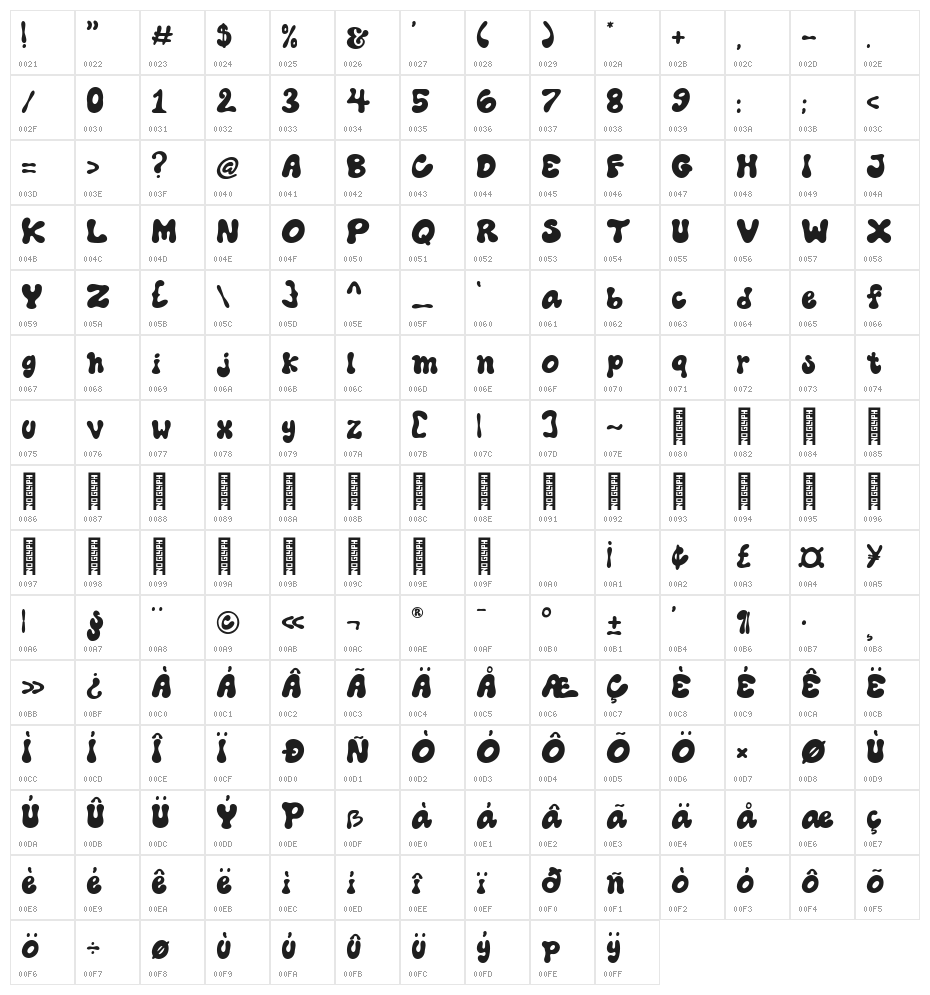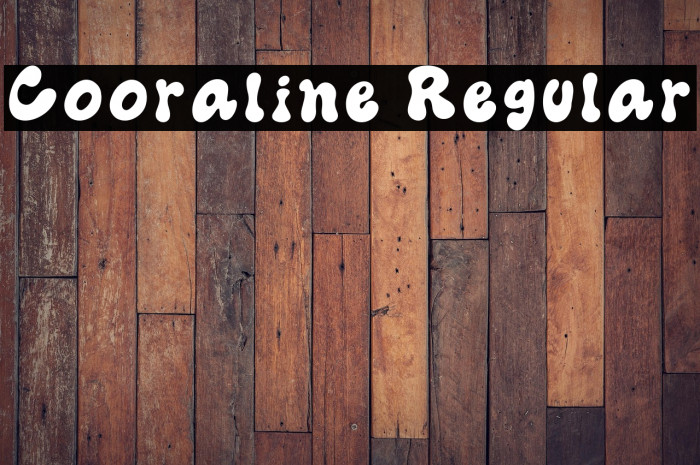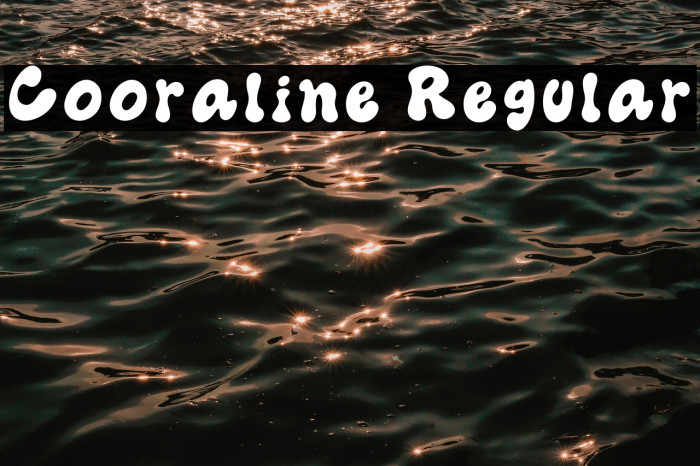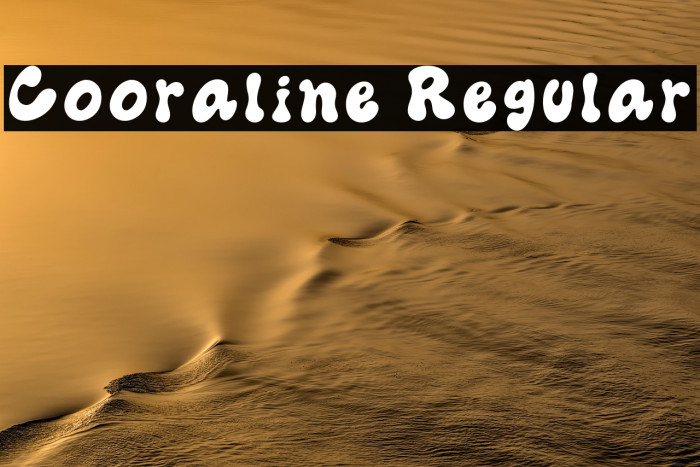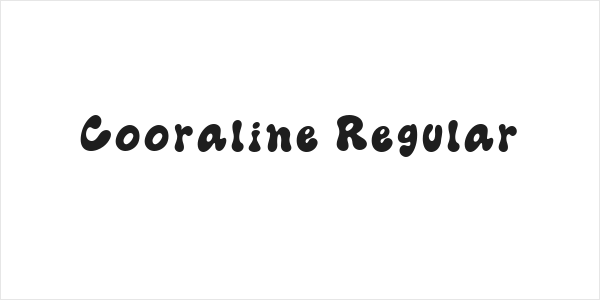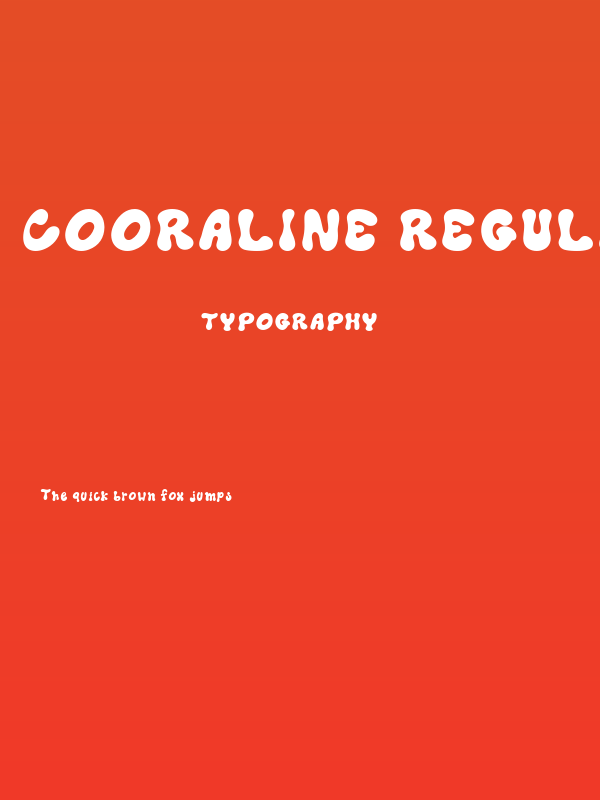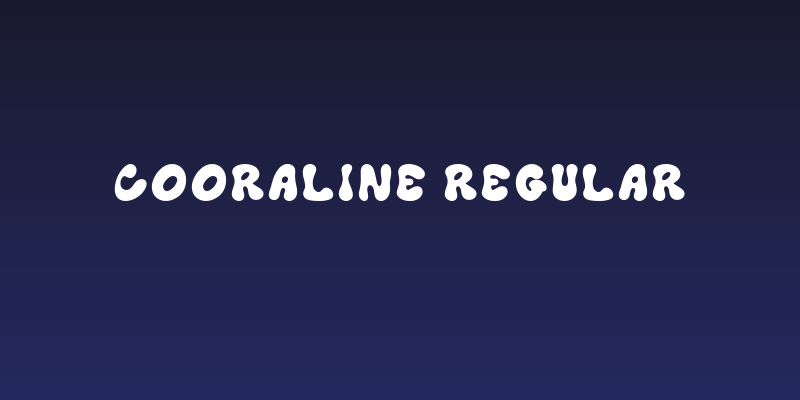
Cooraline Regular Font
Cooraline Regular Description
This font features a playful and bold design with rounded, bubbly characters that convey a sense of fun and whimsy. The letters are thick and have a soft, organic feel, making them stand out with a unique personality. The numbers and special characters maintain this playful aesthetic, ensuring consistency across all glyphs. The overall appearance is informal and lively, suitable for creative and lighthearted projects.